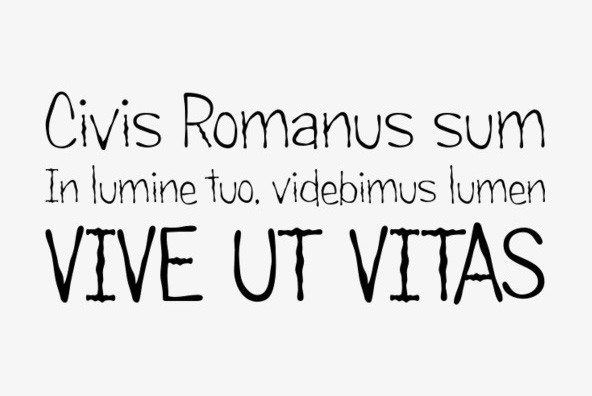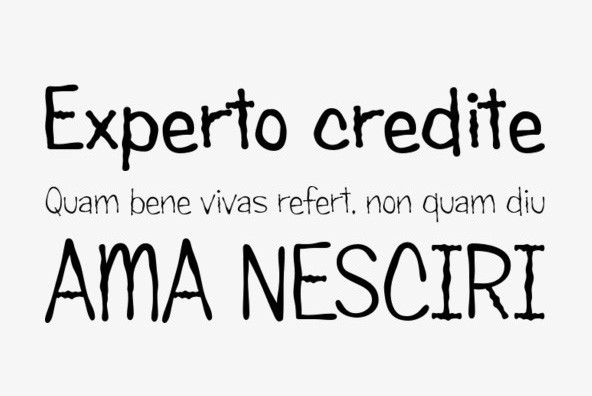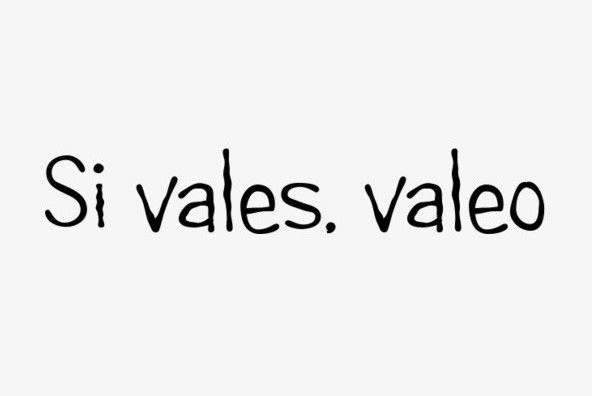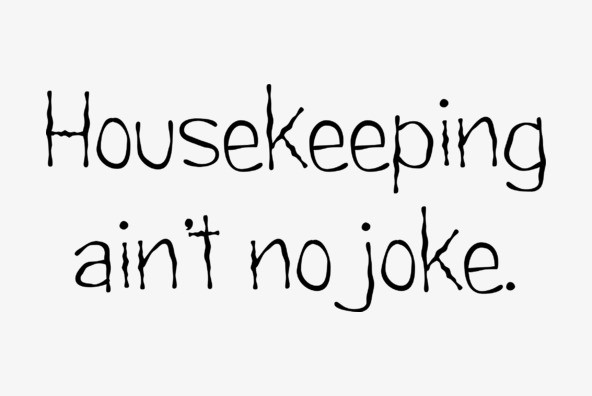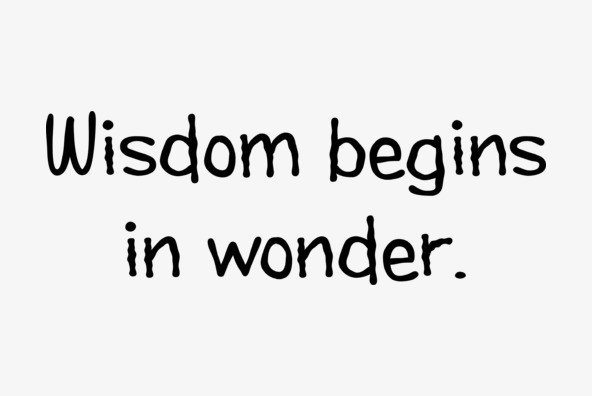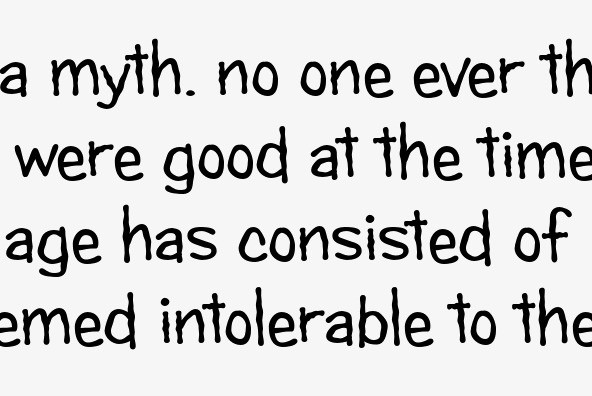
Candy Buzz
Foundry: Breaking The Norm
Candy Buzz is the jumpy sugured up cousin of the classic Candy family which is inspired by vintage confectionary packaging yet yields a modern look and is a perfect display typeface for any use, even at small sizes.